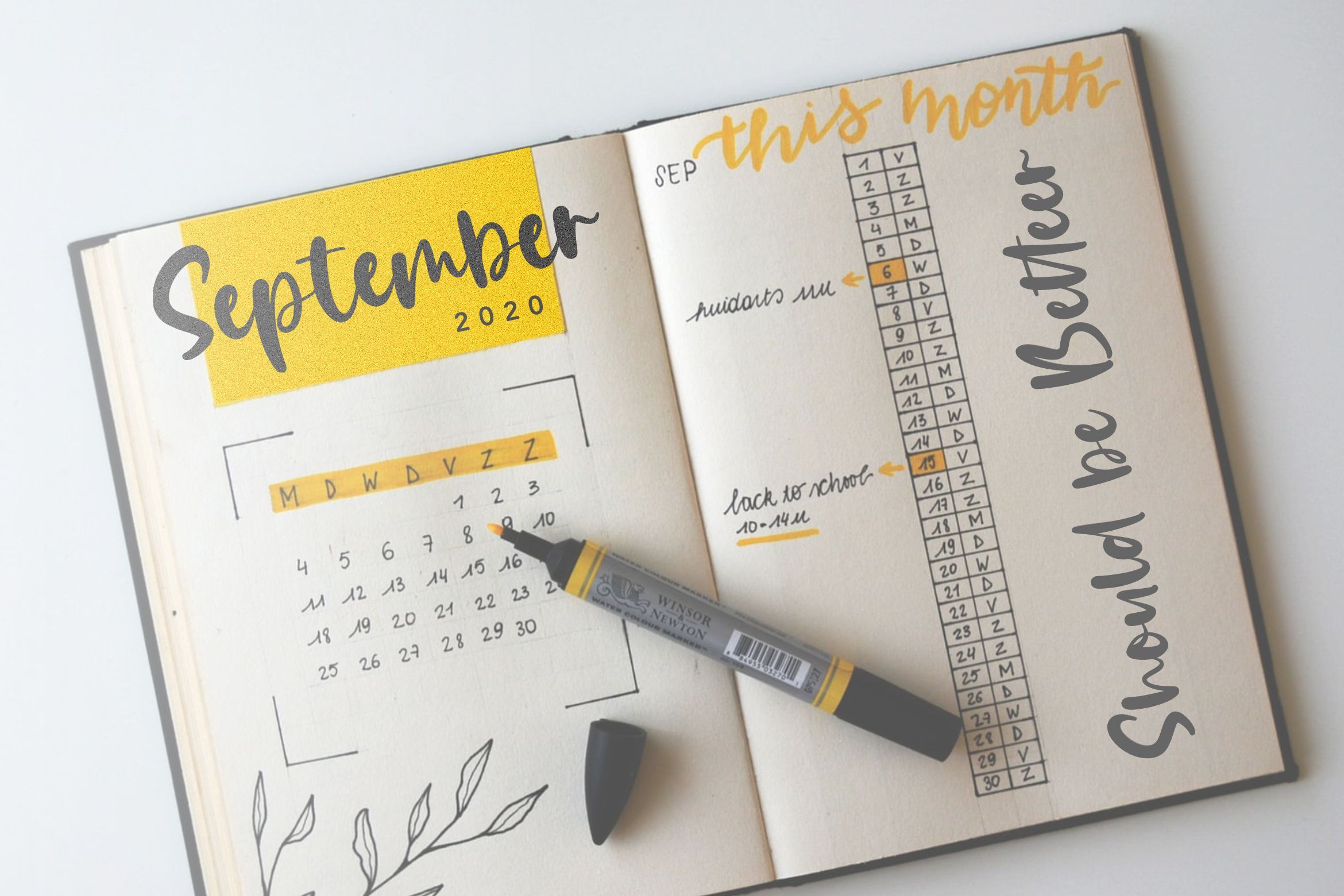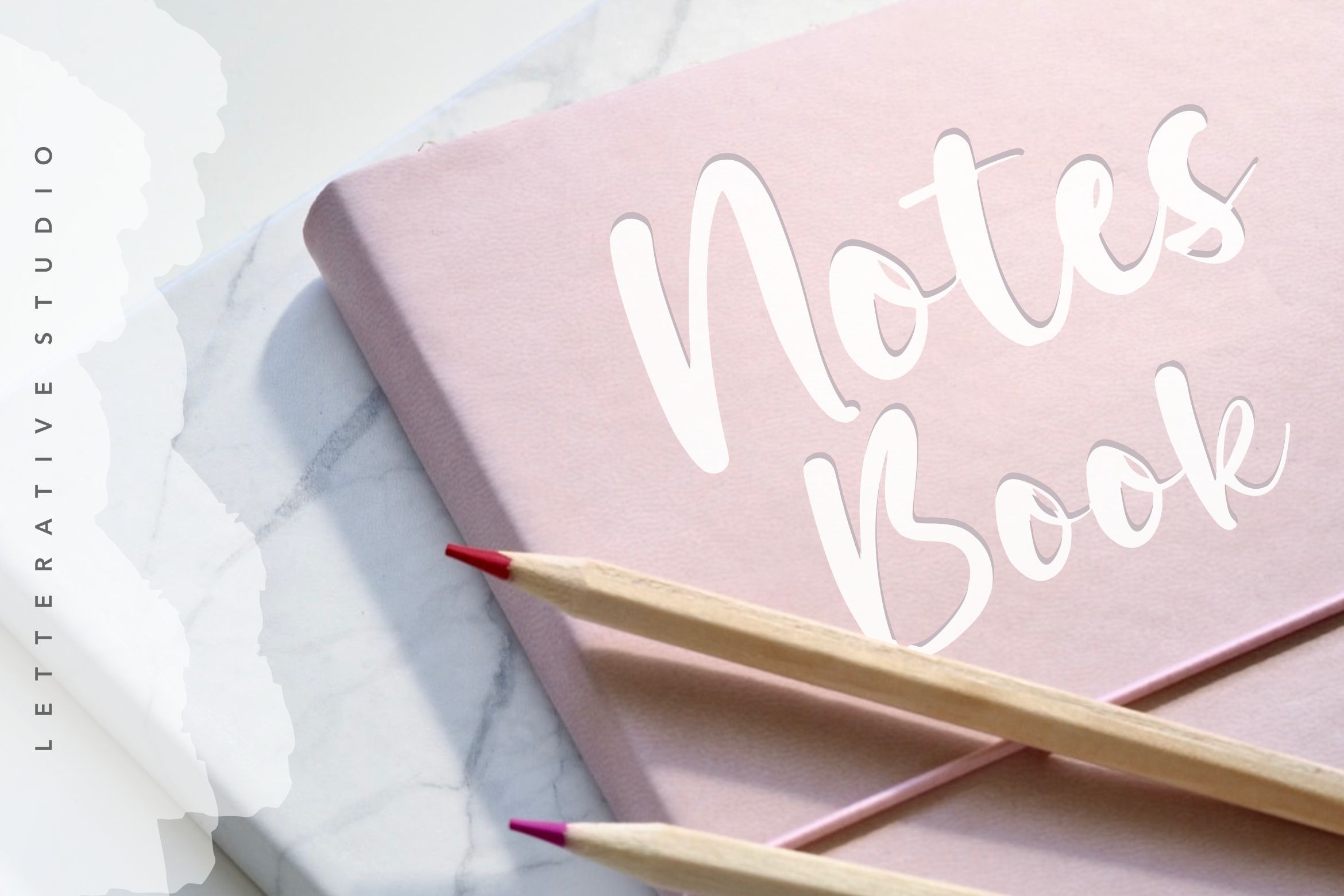
About Daily Feather Modern Calligraphy Font
Introducing by Letterative Studio : Daily Feather Font Daily Feather is a Modern Calligraphy Font Daily Feather is a relaxed handwritten font, defined by a sweet flow. It has beautiful and well balanced characters and as a result, it matches a wide pool of designs. Add it to your most creative ideas and notice how it makes them come alive! This font includes : TTF and OTF Daily Feather also multilingual support Enjoy the font! Feel free to comment or feedback Send me PM or email Thank you!